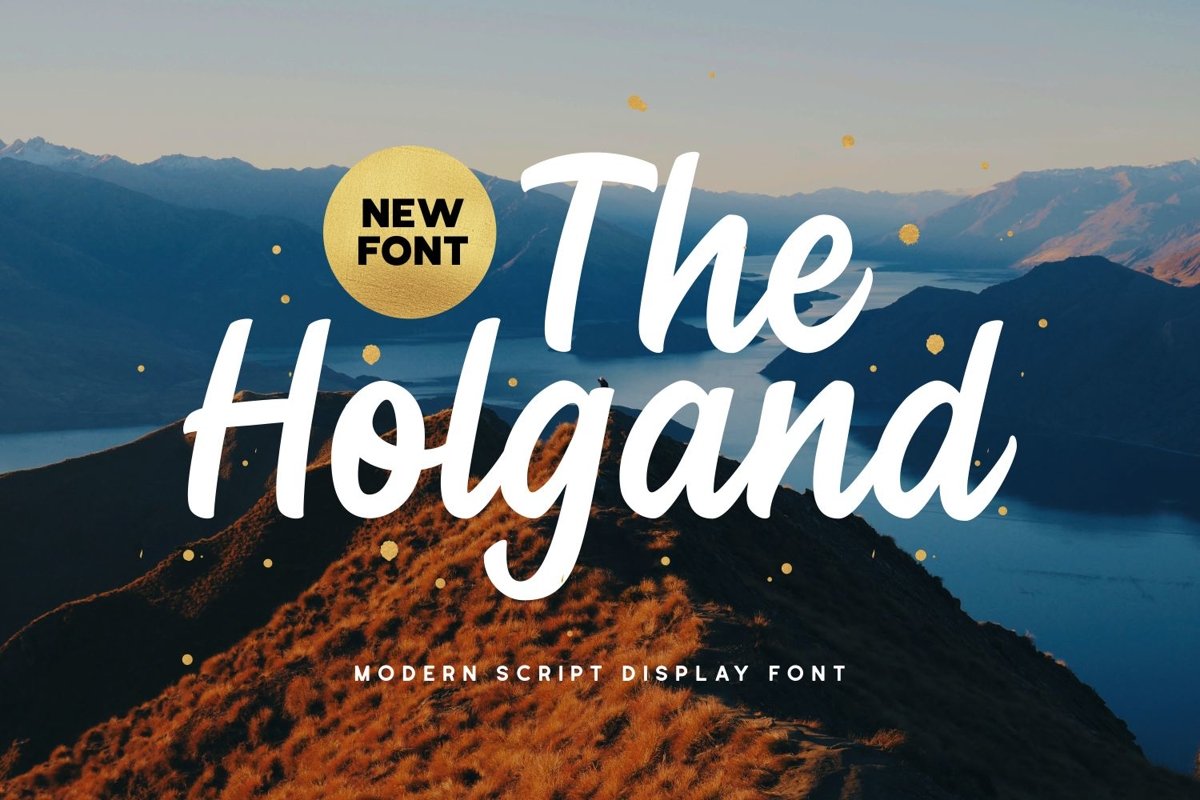
Holgand is a script come with casual and clean themes. It matches applies in some designs such as the logotype, brand, packaging, quotes, poster, shirt, book, invitation and more custom design. The features uppercase, lowercase, numeral, punctuation & symbol, multilingual support, PUA encoded (fully accessible without additional design software).
Holgand